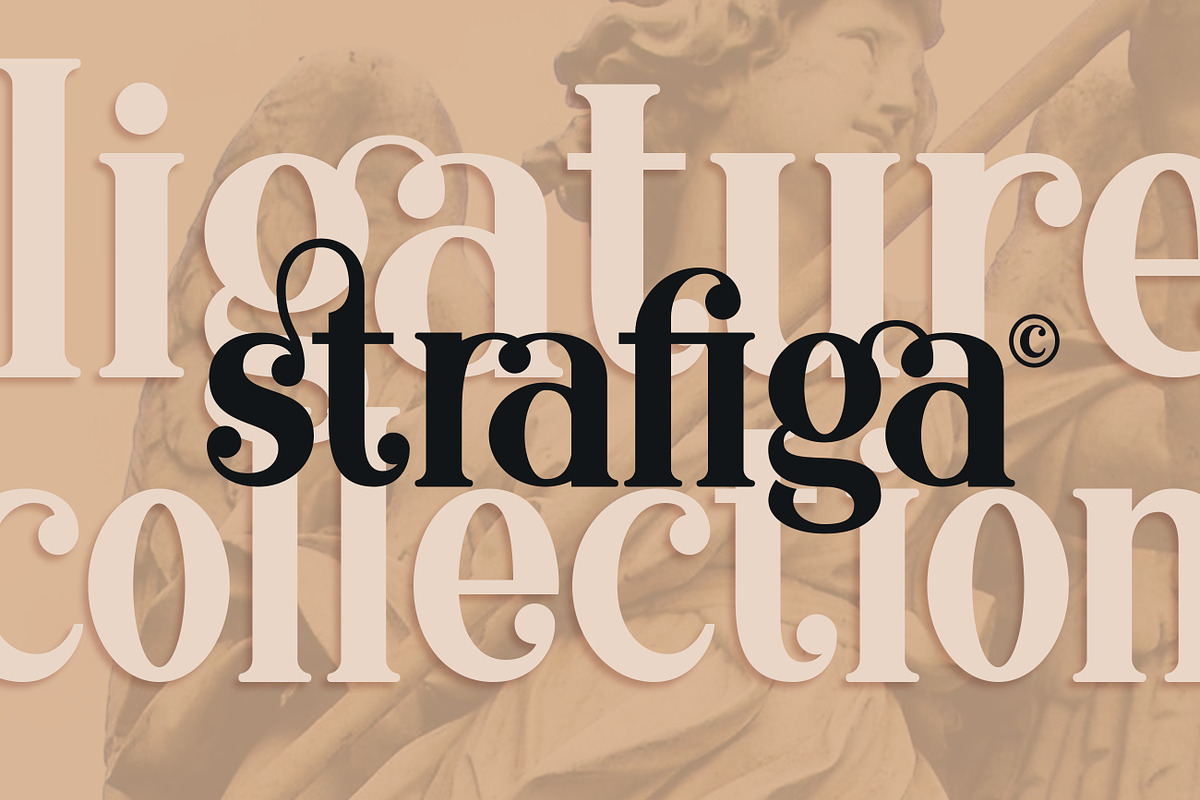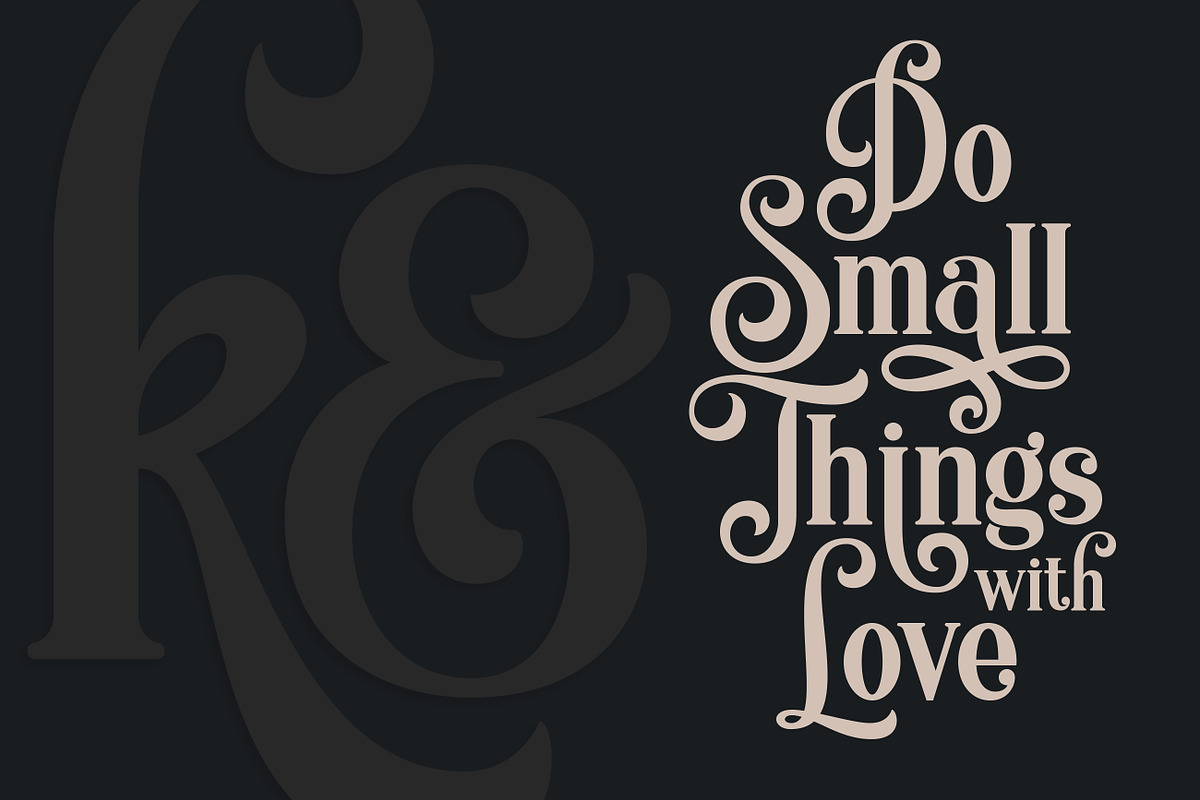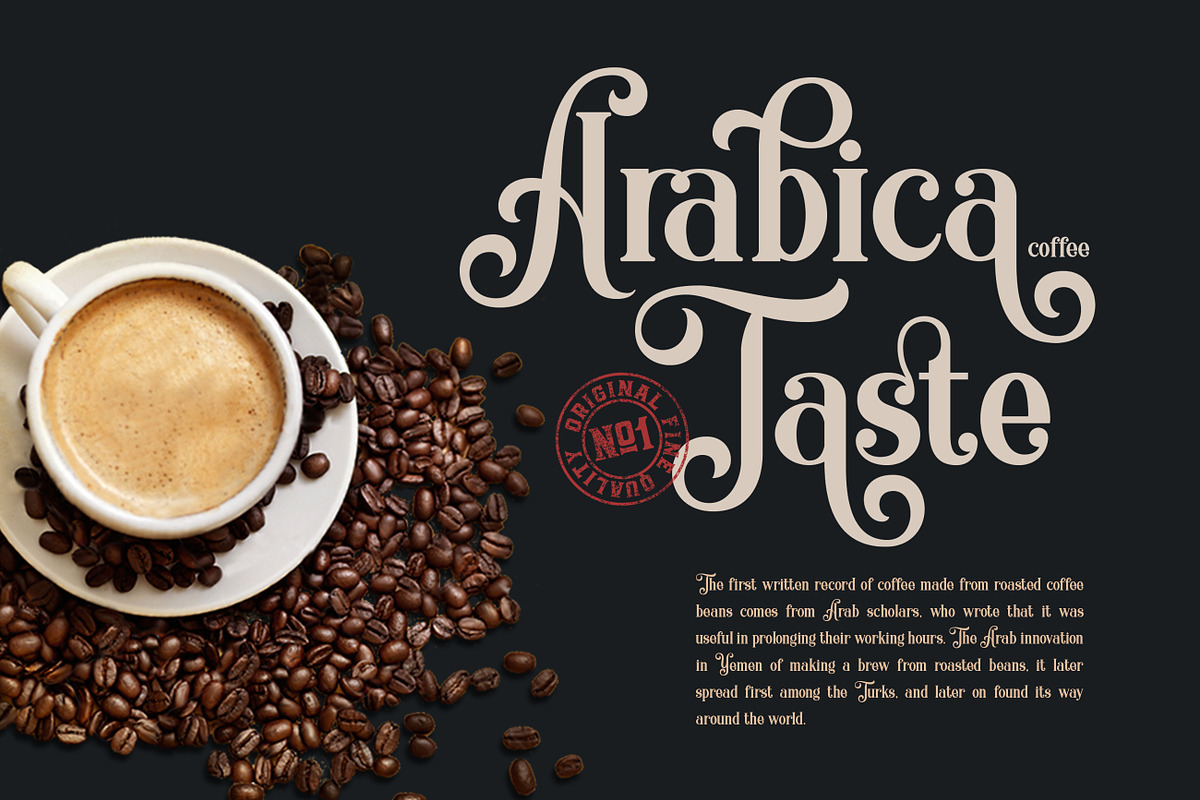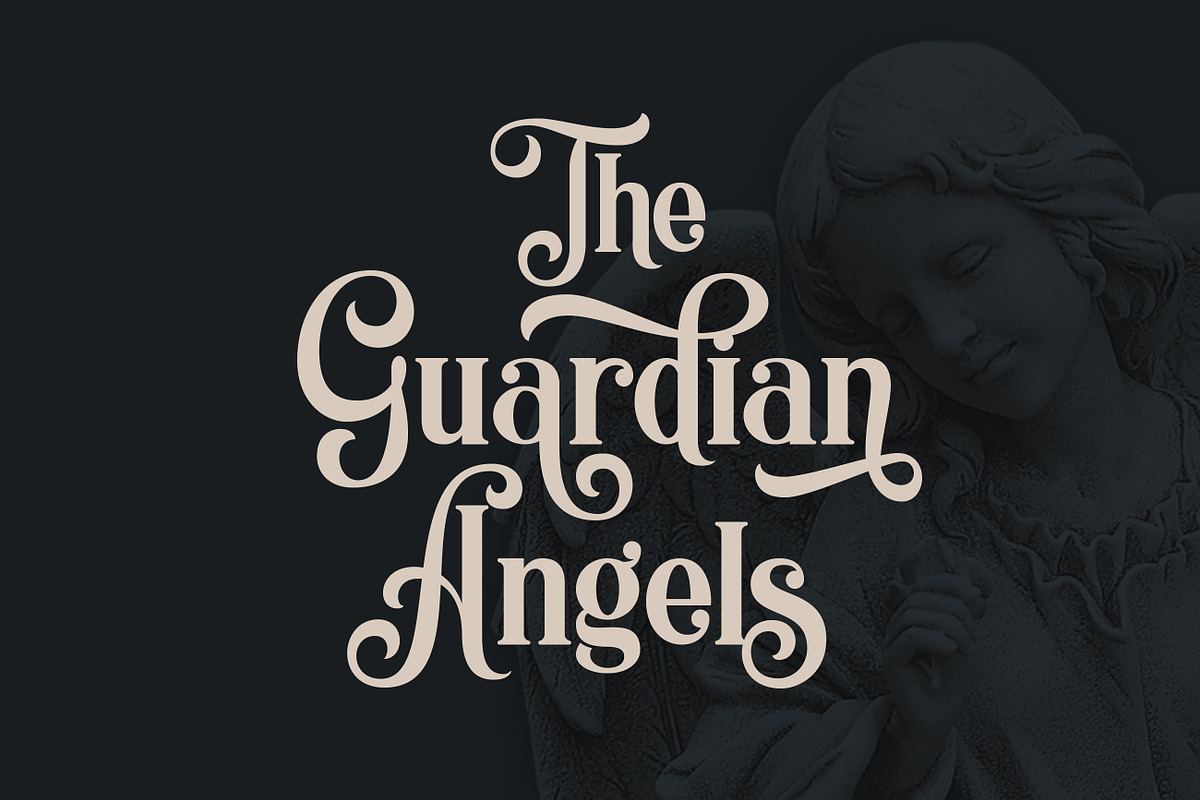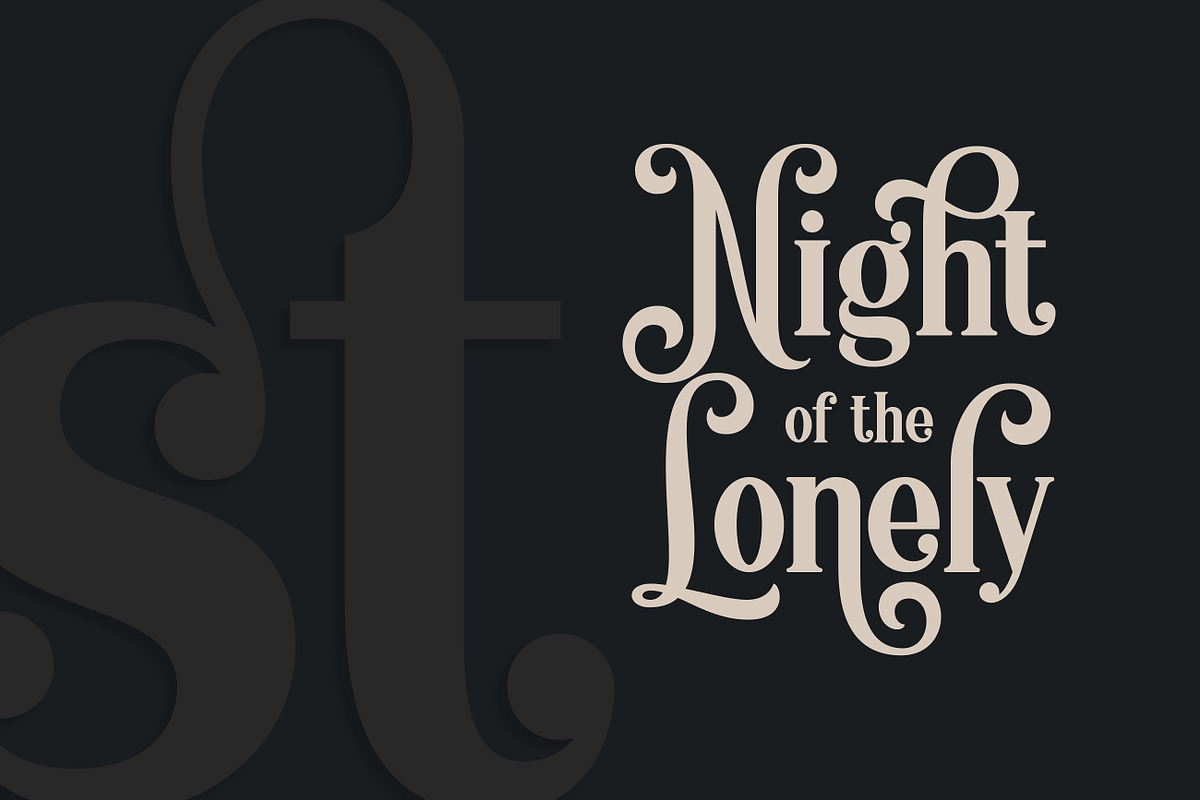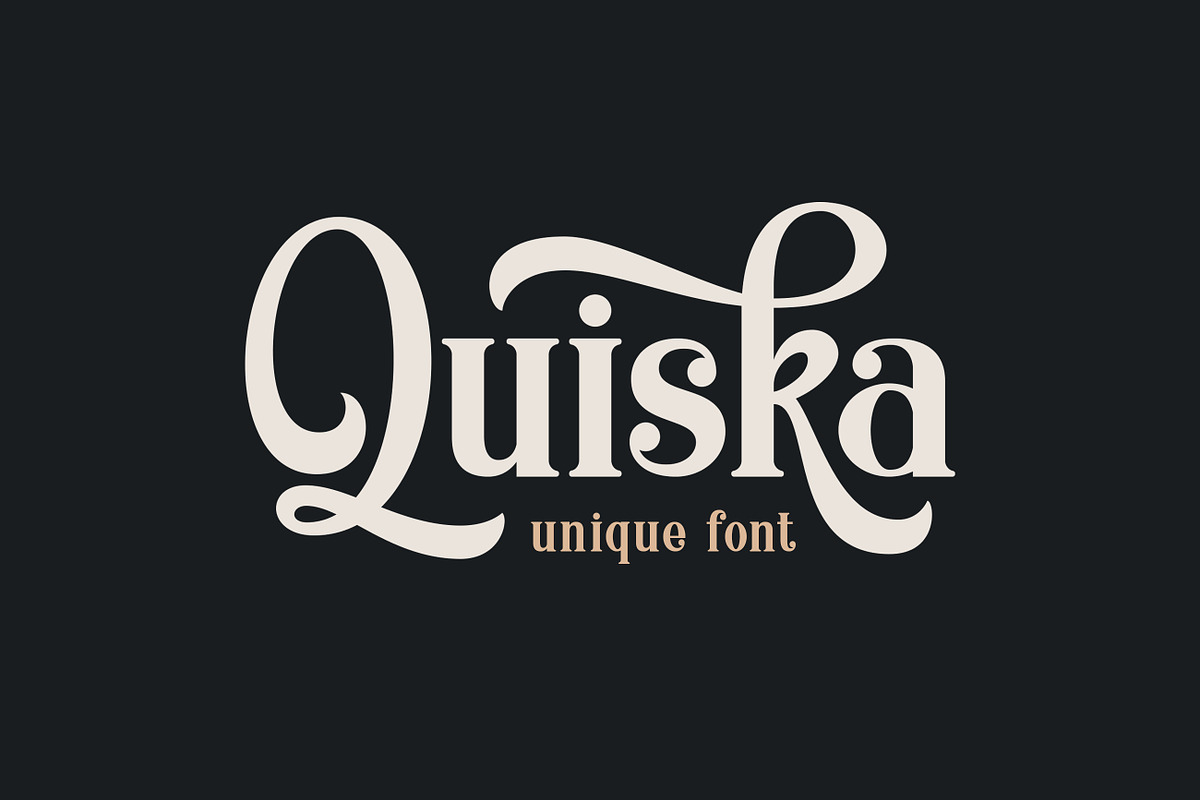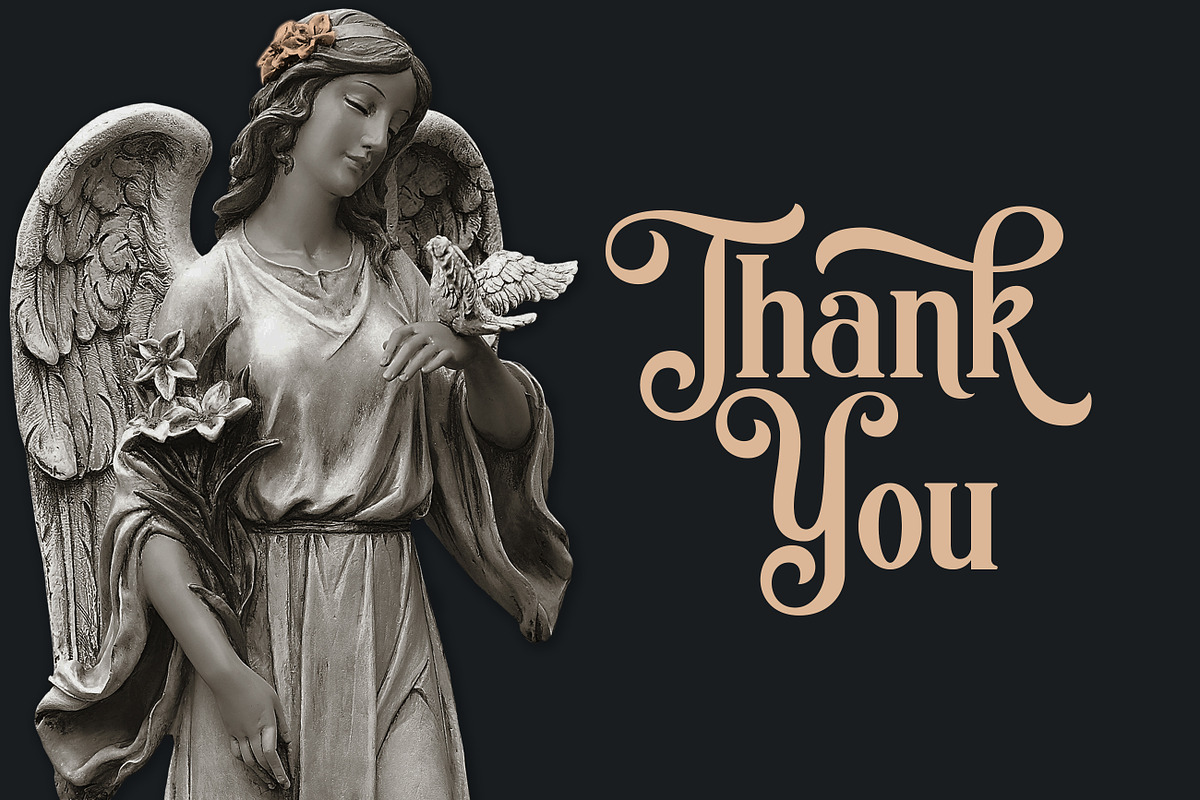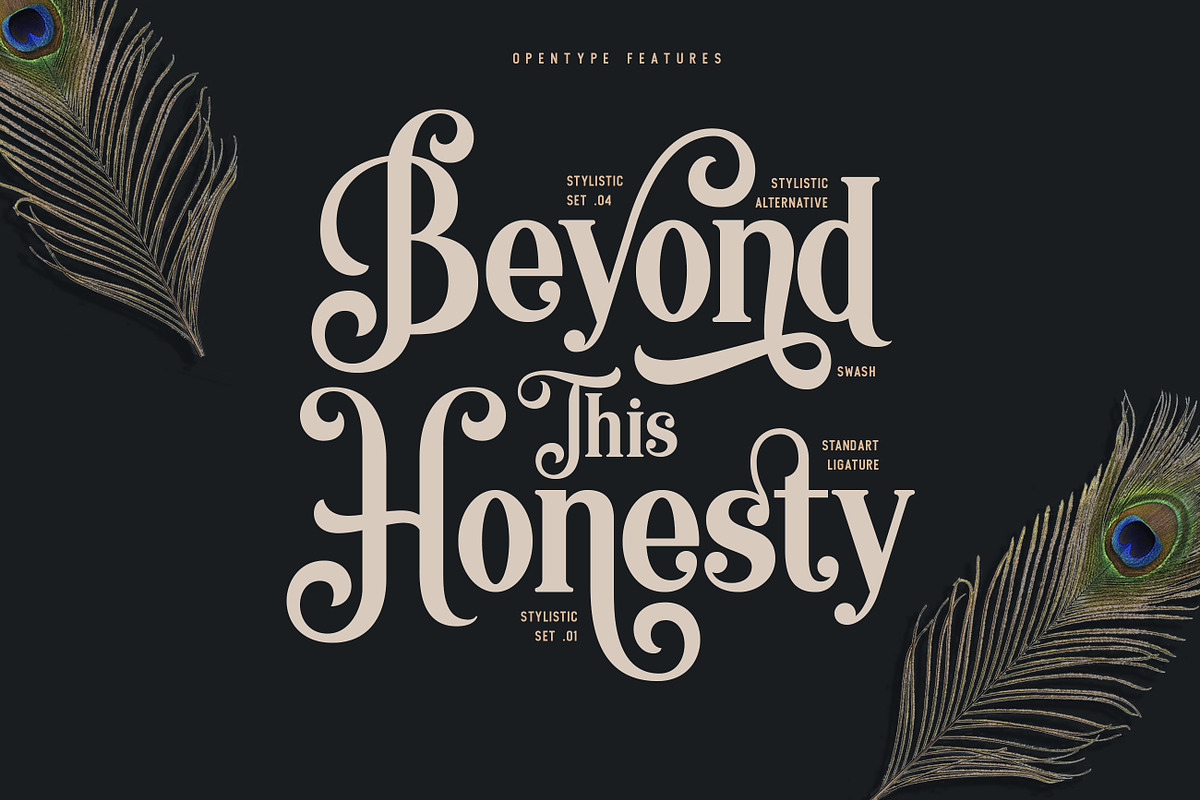
Quiska Unique Font
Quiska is a unique serif font, I combine a unique capital letter and add some kind of alternative character with a beautiful swash, Quiska have 300 more glyphs. You can use it as a logo, badge, typography art, packaging, headline, poster, t-shirt/apparel, greeting card, and wedding invitation. You can mix and match Quiska with a bunch of alternative characters to fit your project.